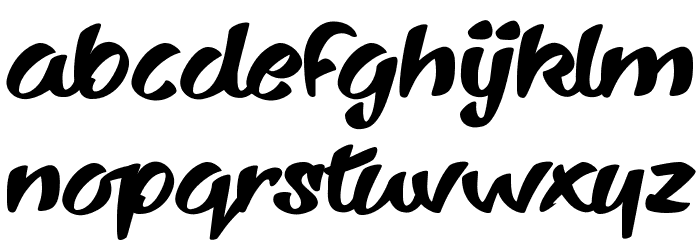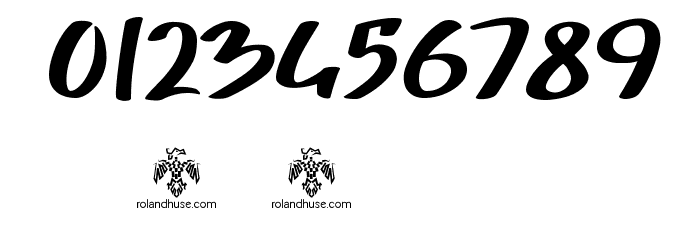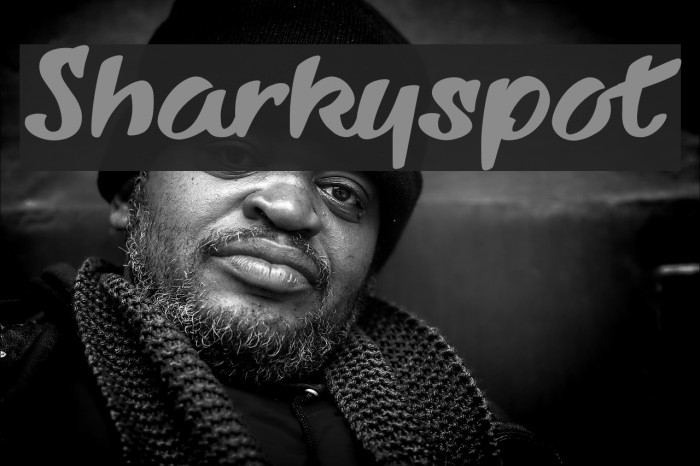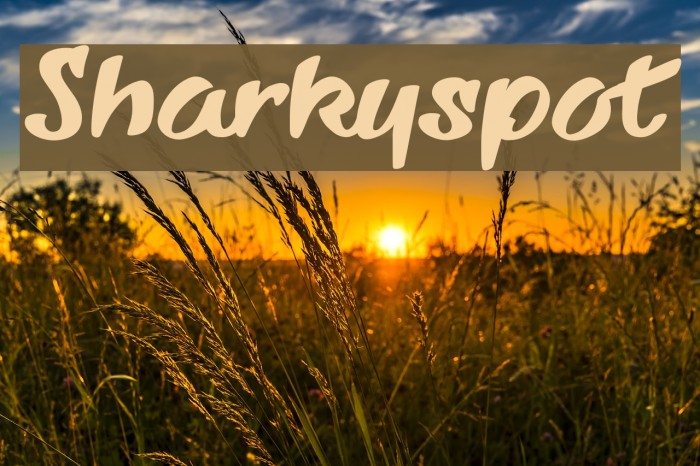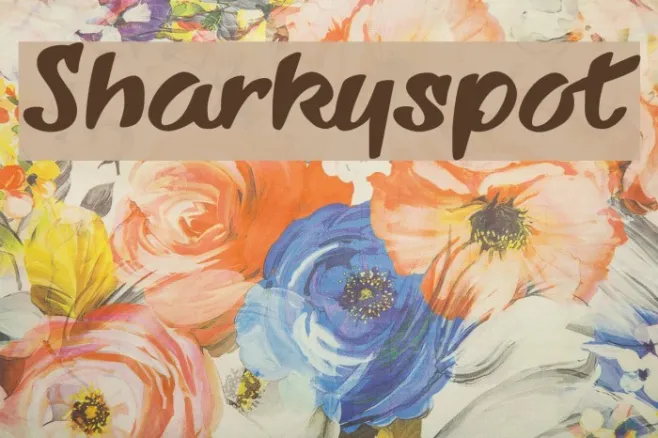
Sharkyspot Font
This font features a bold and dynamic script style with a playful and energetic flair. The characters are slightly slanted, giving a sense of movement and fluidity. The strokes are thick and consistent, providing a strong visual impact. The uppercase letters are bold and prominent, while the lowercase letters maintain a cohesive flow. The numbers are equally bold, ensuring readability. This font is ideal for projects that require a lively and engaging appearance.
A bold, dynamic script font with a playful and energetic style.
- Proposed Projects: Ideal for branding, posters, social media graphics, and event invitations.